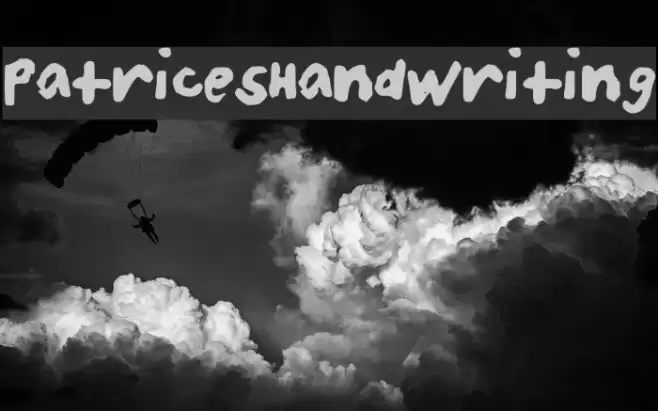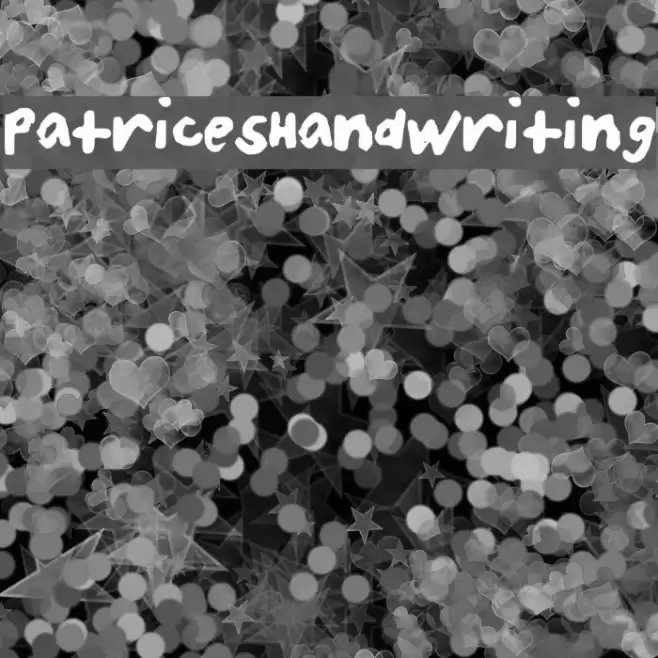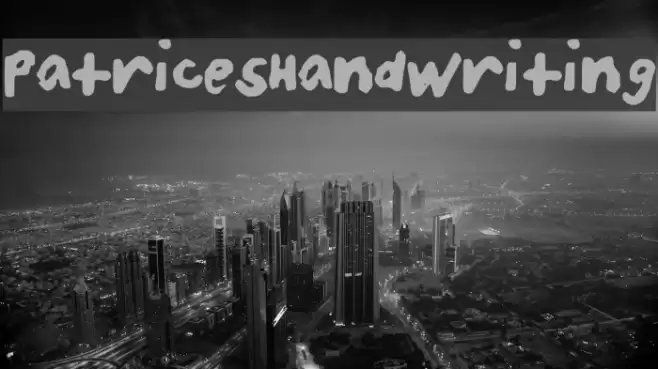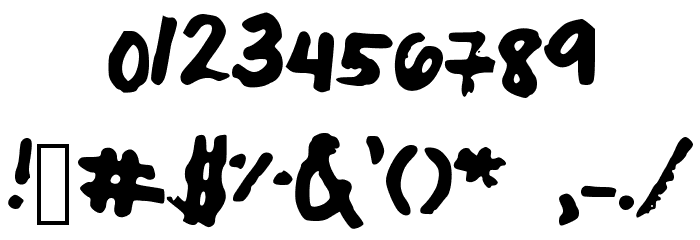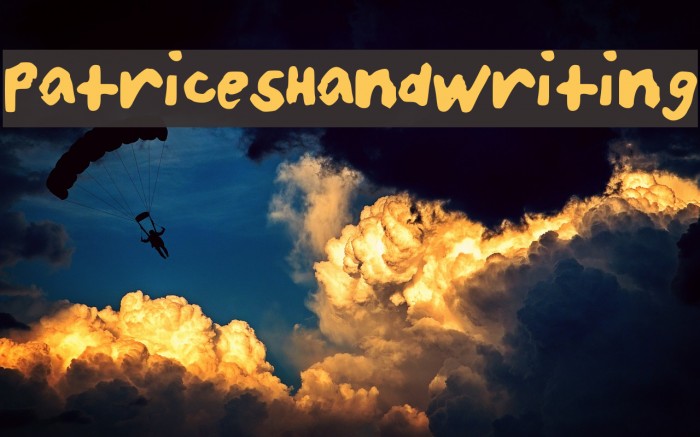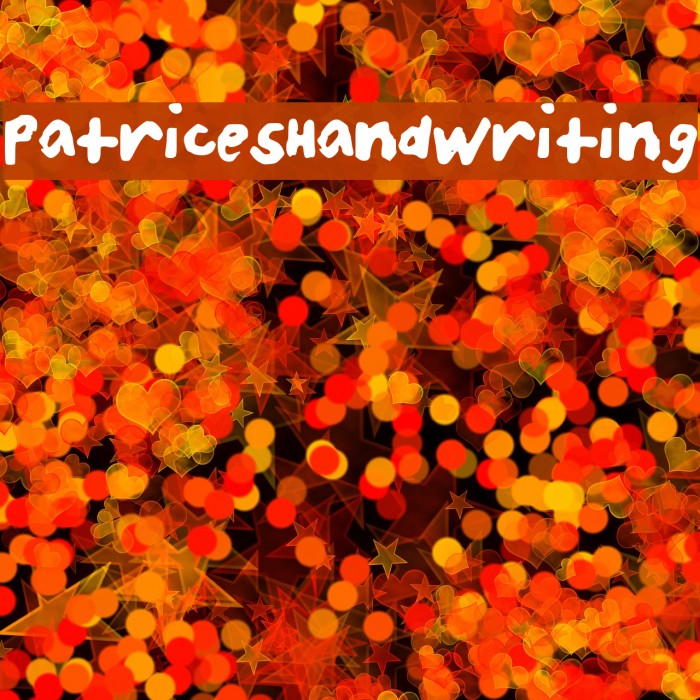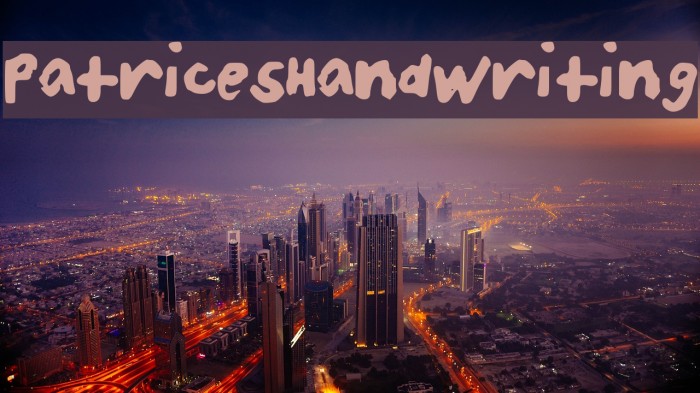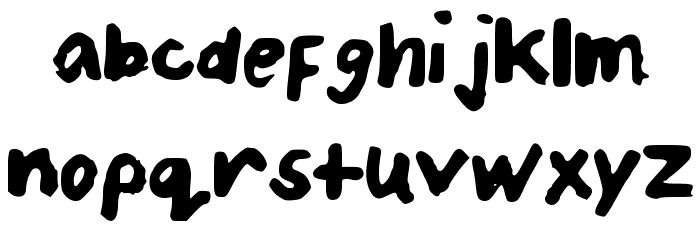
PatricesHandwriting Font
PatricesHandwriting Description
This font exudes a playful and casual handwritten style, characterized by its bold and irregular strokes. The letters have a slightly uneven baseline, giving it an authentic, hand-crafted appearance. The uppercase and lowercase letters maintain a consistent style, with rounded edges and varying stroke widths that add to its charm. The numbers and special characters follow the same playful aesthetic, making it suitable for informal and creative projects. The overall look is friendly and approachable, perfect for adding a personal touch to any design.
A bold, playful handwritten font with irregular strokes and a casual style from Handwritten fonts.
- Proposed Projects: Ideal for greeting cards, children's books, casual branding, and social media graphics.
- Overall Style: Casual, Playful
- Use Case: Headlines, Informal text, Creative projects